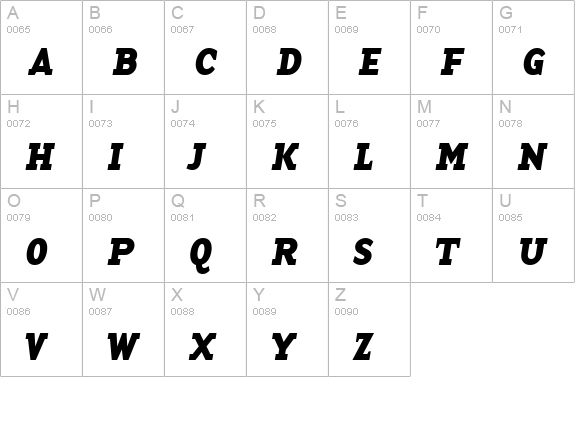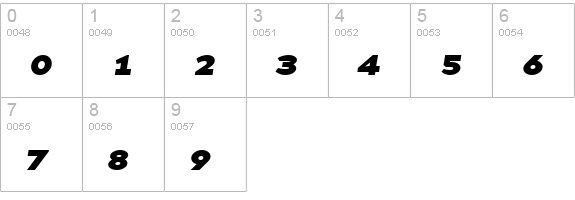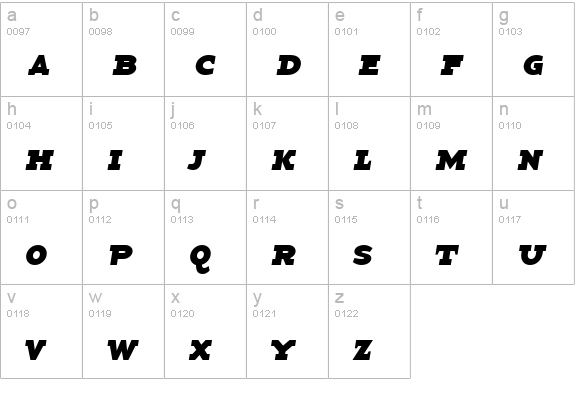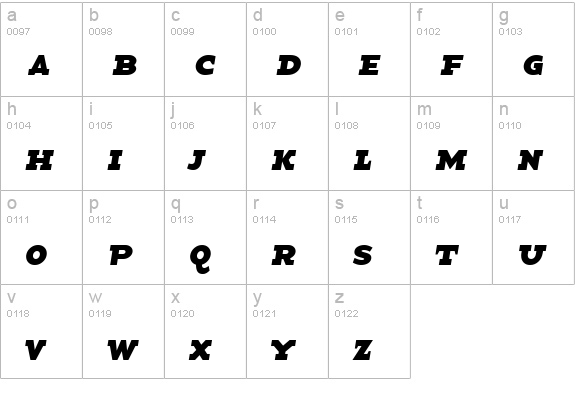
BaseTwSerifSmallCaps Bold Italic Font Details
BaseTwSerifSmallCaps Bold Italic is a strong, high-contrast, italic variant in the BaseTwSerifSmallCaps typeface family \xE2\x80\x94 well suited to headlines, attention-grabbing titles, and strong calls-to-action.
BaseTwSerifSmallCaps Bold Italic is a striking and elegant font that exudes sophistication and style. Its bold and italic design adds a touch of flair to any project, making it stand out from the crowd. The small caps feature gives it a unique and classic look, perfect for creating a timeless aesthetic. This font is not only visually appealing but also versatile, suitable for a wide range of design projects including branding, editorial design, and packaging. Its sleek and modern appearance makes it a great choice for both digital and print applications. Best of all, BaseTwSerifSmallCaps Bold Italic is available for free download at FontsMarket.com. Now you can elevate your designs with this stunning font without breaking the bank. Don't miss out on the opportunity to enhance your projects with this exceptional typeface.